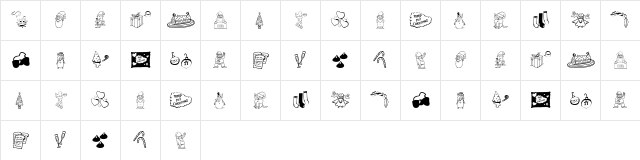
Pimp My Christmas Regular
Design Context for Pimp My Christmas Typeface
Pimp My Christmas is a composed and adaptable typeface that performs quietly and consistently across a wide range of design contexts.